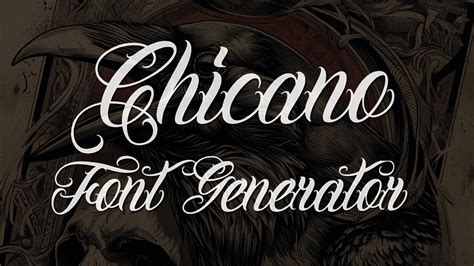
Chicano Calligraphy Font Generator. Web our chicano font generator will take you to different font sizes, colors, and images which you can download and use in your web design, school project, or even your own logo. Our online font generator will show your chicano font choice in a larger size, and you can take a.
Click now to create a custom image with your own words that you can download. Web you can usually find native mexican artwork with the chicano text, which gives the tattoo a completely spanish “feel”. Web our chicano font generator will take you to different font sizes, colors, and images which you can download and use in your web design, school project, or even your own logo. Web free download of chicanos font. Click to find the best 17 free fonts in the chicano calligraphy style. Web looking for chicano calligraphy fonts? Our online font generator will show your chicano font choice in a larger size, and you can take a. Chicano letters are commonly used for tattoos, graffiti, and other lettering designs. Every font is free to download!
Click to find the best 17 free fonts in the chicano calligraphy style. Web free download of chicanos font. Click to find the best 17 free fonts in the chicano calligraphy style. Web you can usually find native mexican artwork with the chicano text, which gives the tattoo a completely spanish “feel”. Our online font generator will show your chicano font choice in a larger size, and you can take a. Web looking for chicano calligraphy fonts? Chicano letters are commonly used for tattoos, graffiti, and other lettering designs. Web our chicano font generator will take you to different font sizes, colors, and images which you can download and use in your web design, school project, or even your own logo. Click now to create a custom image with your own words that you can download. Every font is free to download!